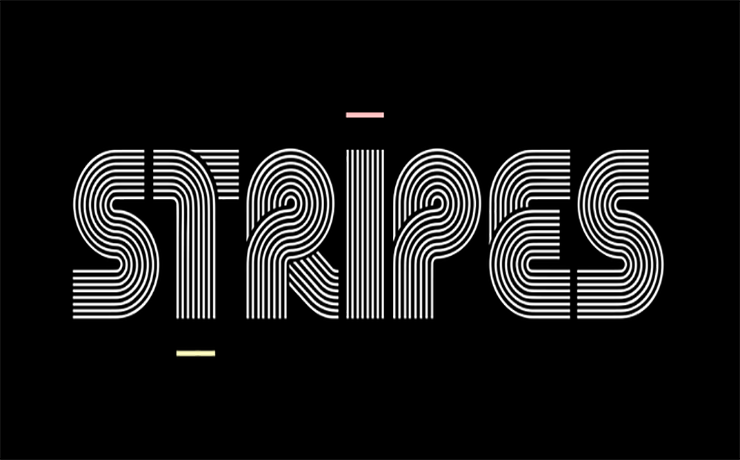
Striped Font is a modern display font that is one of the most creative styles of fonts available in the market. It has created an elegant modern typeface with interesting lines and a straight cut-off in the end.
This display font family was designed by Tony Wenman, Ralph Unger and published by Thinkdust.
Due to its fabulous personal appearance and fashionable structure, it has been a huge success in the early days.
The lines ending in perfect circles and geometric curves truly capture what could be called alien art. As such, a wide variety of designers are constantly working with this typeface in their various projects.
Font Name: | Stripes Font Family |
Style: | Modern, Display, Sans Serif |
Font Designer: | Tony Wenman |
Every single letter features an extraordinary textual arrangement as you can see in images.
You can use it for different purposes like logo design, layouts, movie posters, professional cards designs, printing on T-shirts, product designs, banners ads, and many more.